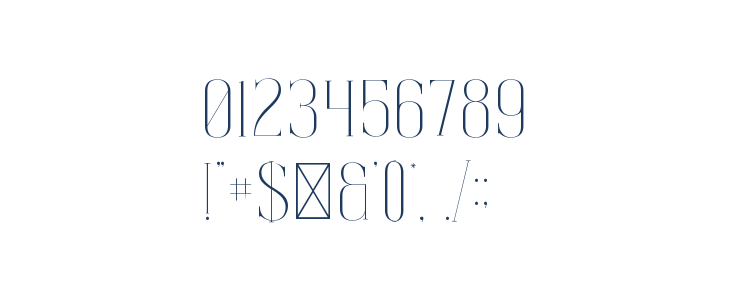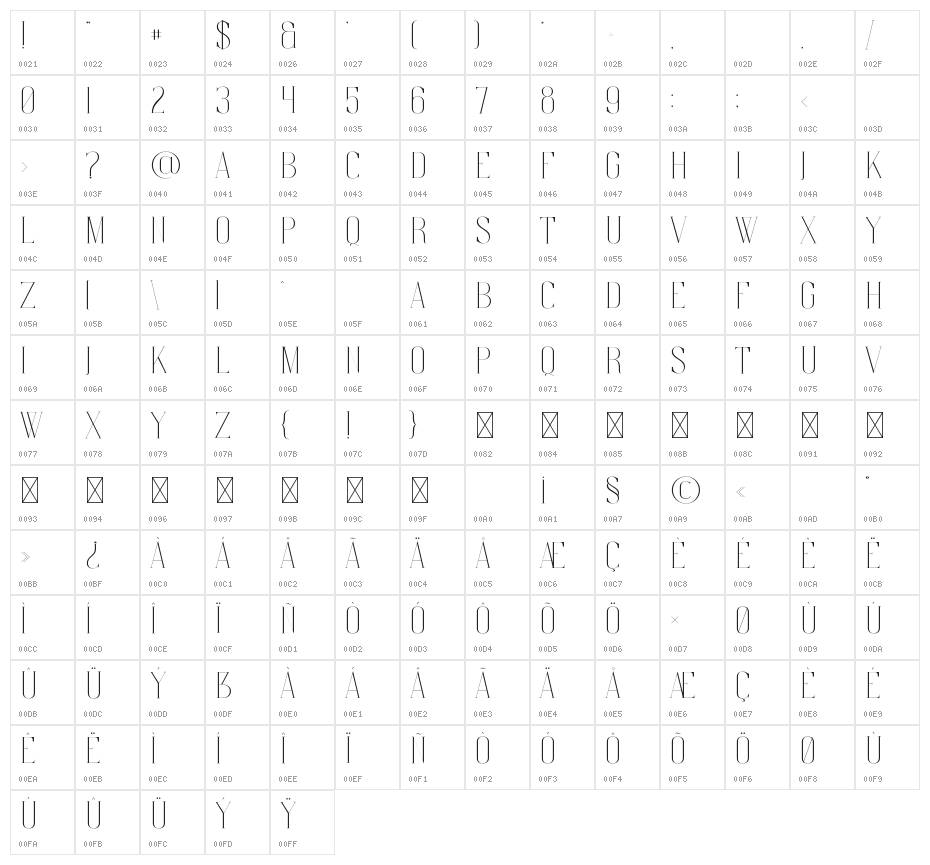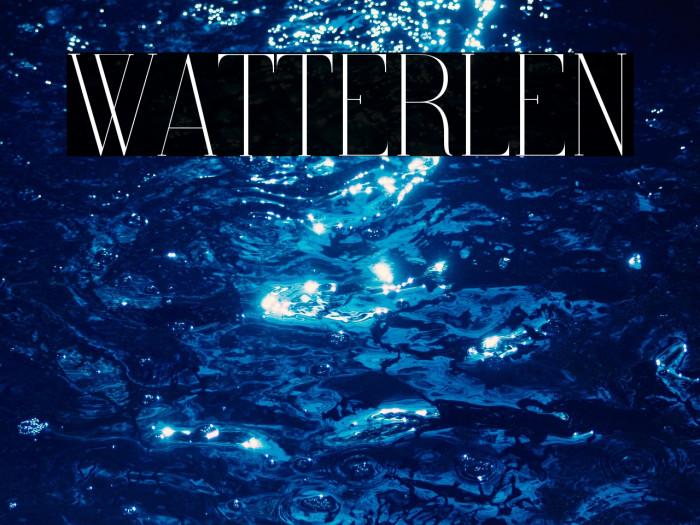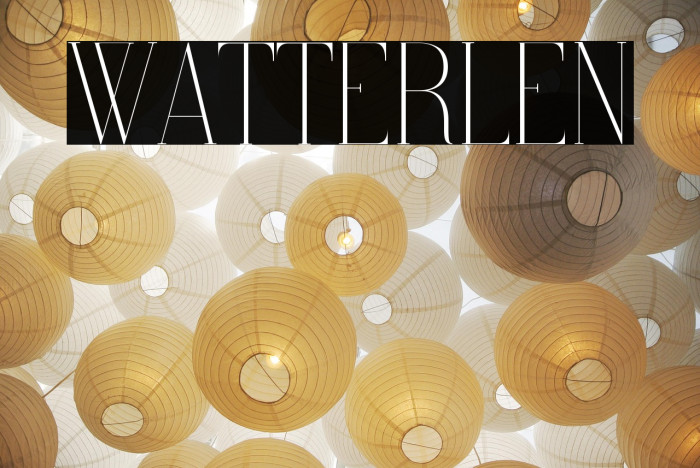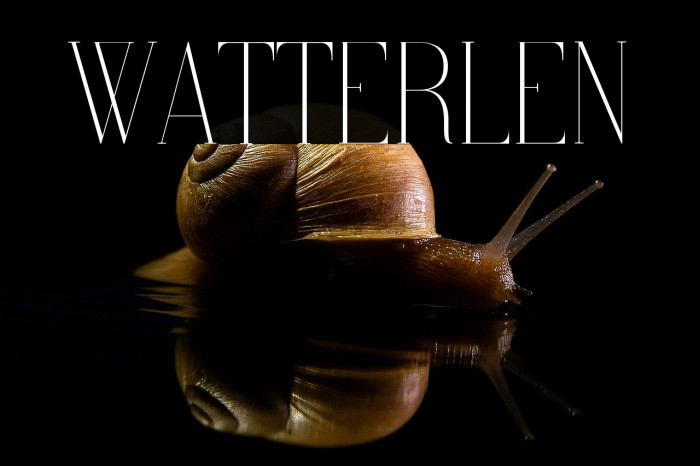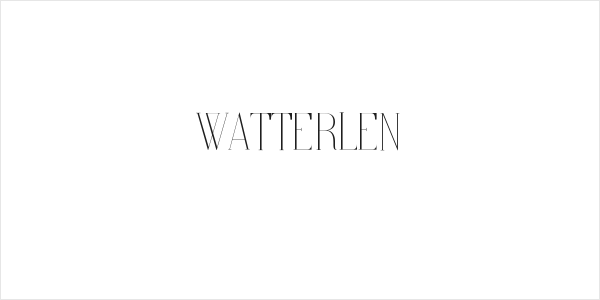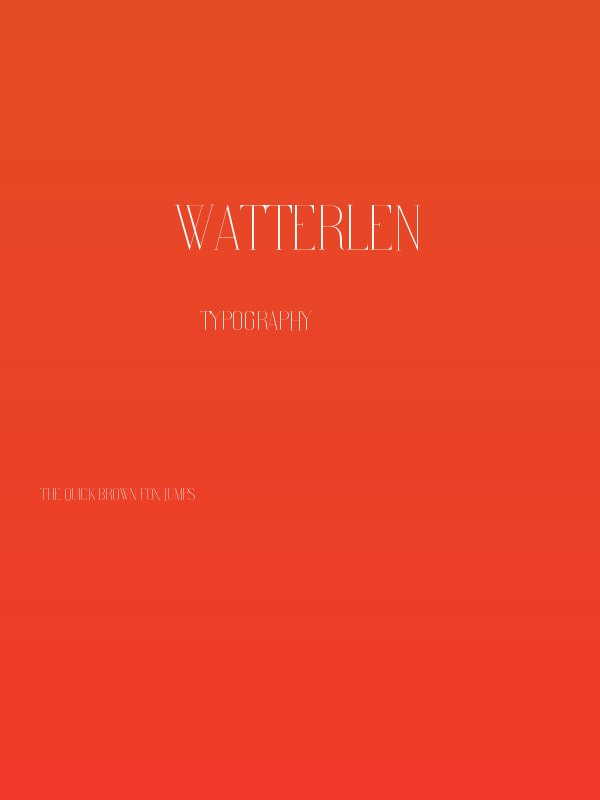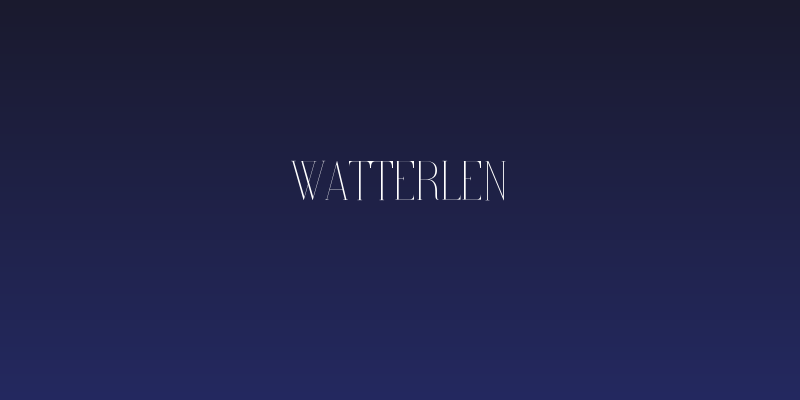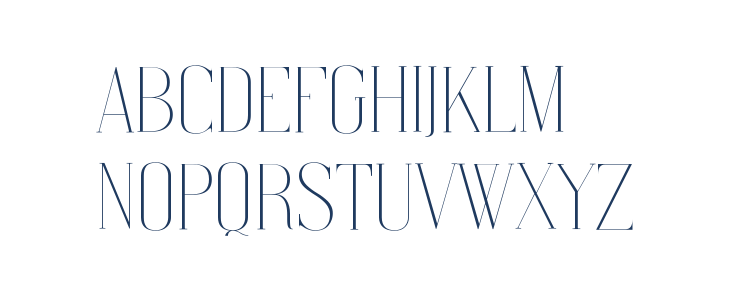
Watterlen Font
Watterlen Description
This font features a modern and elegant design with tall, slender characters and high contrast between thick and thin strokes. The uppercase letters are particularly elongated, giving a sophisticated and stylish appearance. The numerals are consistent with the overall tall and narrow aesthetic, while the special characters maintain the same refined style. The font's clean lines and sharp edges make it suitable for high-end branding and editorial design, where a touch of elegance is desired.
| Overall Style | Modern, Elegant |
| Use Case | Headlines, Logos, Editorial design |
| Proposed Projects | Ideal for luxury branding, fashion magazines, wedding invitations, and editorial layouts. |